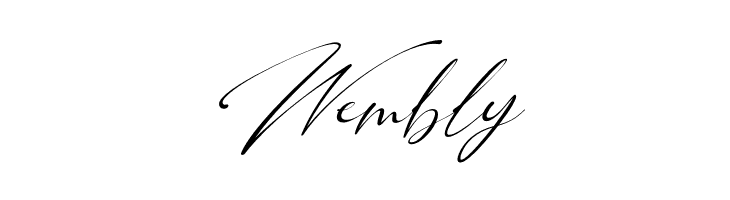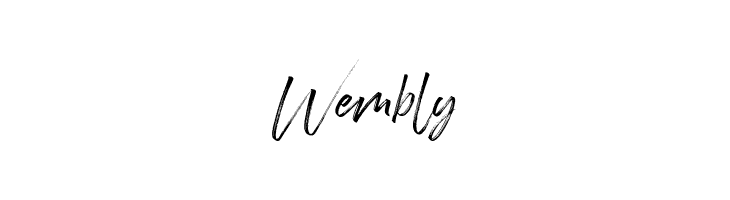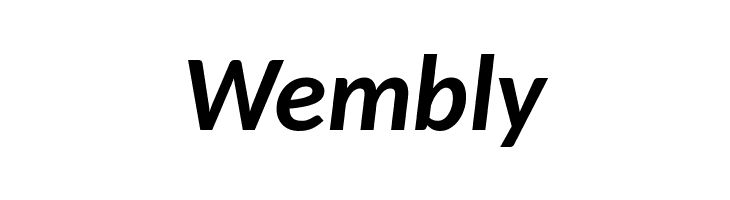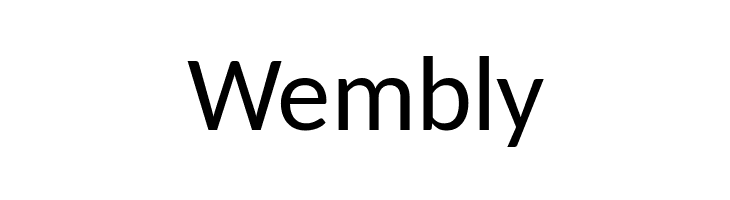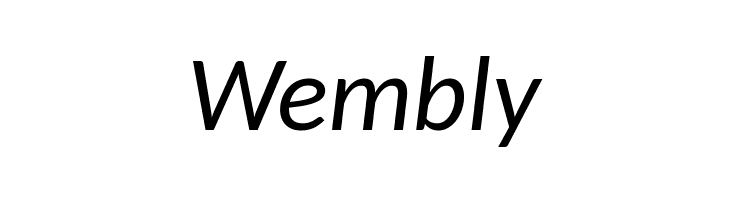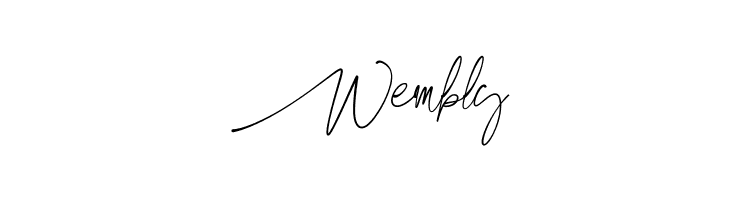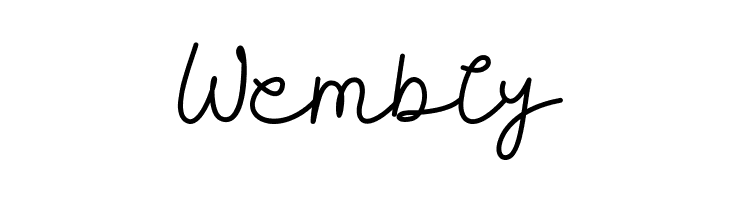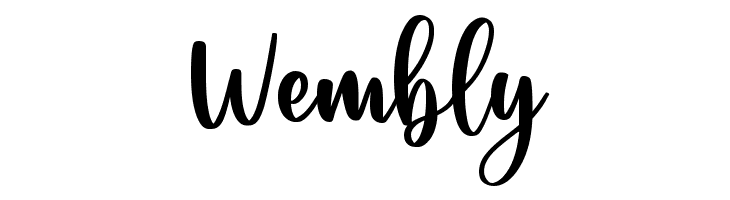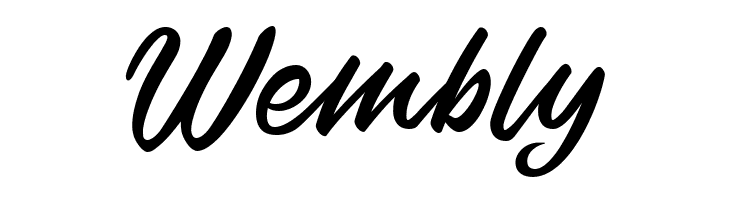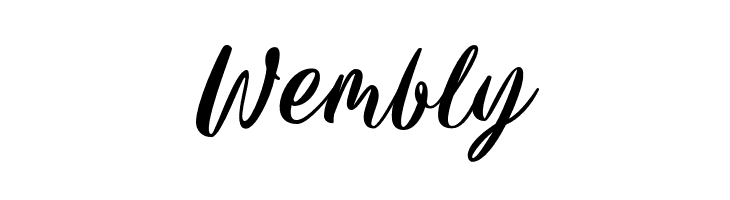
A playful, bold font with exaggerated curves and a whimsical style.
A playful set of expressive emoji-like faces with bold outlines.
A modern, elegant font with tall, slender letterforms and decorative serifs.
A dynamic and fluid script font with elegant, flowing curves.
A dynamic and flowing script font with elegant, interconnected strokes.
An artistic and flowing calligraphic font with elegant curves.
A dynamic and fluid script font with elegant, flowing strokes.
A bold, three-dimensional font with a vintage, shadowed style.
A classic serif font with elegant, elongated letterforms and medium contrast.
A bold, playful handwritten font with dynamic strokes and a lively appearance.
A playful and elegant script font with flowing, cursive letterforms.
A classic serif typeface with elegant curves and refined structure.
A bold, geometric font with strong, modern letterforms.
A graceful script font with flowing, cursive characters and elegant styling.
A bold, flowing script font with elegant curves and cohesive style.
An elegant, fluid script font with a sophisticated, handwritten style.
A dynamic, expressive handwritten font with varied stroke thickness.
A clean, geometric font with a modern aesthetic.
A lively and expressive handwritten font with fluid strokes.
A playful, casual handwritten font with smooth, flowing lines.
A playful and whimsical font with bold, rounded strokes and decorative elements.
A playful, hand-drawn font with bold, rounded strokes and whimsical character.
An elegant, flowing script font with sophisticated cursive letterforms.
An elegant, cursive font with fluid strokes and graceful flourishes.
An elegant, high-contrast script font with flowing, interconnected letters.
A dynamic, cursive script font with smooth, flowing letterforms.
A bold, flowing script font with a dynamic and expressive style.
A clean, modern sans-serif font with uniform stroke width and excellent readability.
A bold, modern sans-serif font with excellent readability and versatility.
A modern sans-serif italic font with smooth curves and consistent stroke width.
A dynamic and fluid script font with elegant, flowing letterforms.
A charming handwritten script with fluid, connected strokes.
A flowing, cursive font with smooth, connected strokes and a handwritten appearance.
A sophisticated script font with flowing, interconnected letters and elegant flourishes.